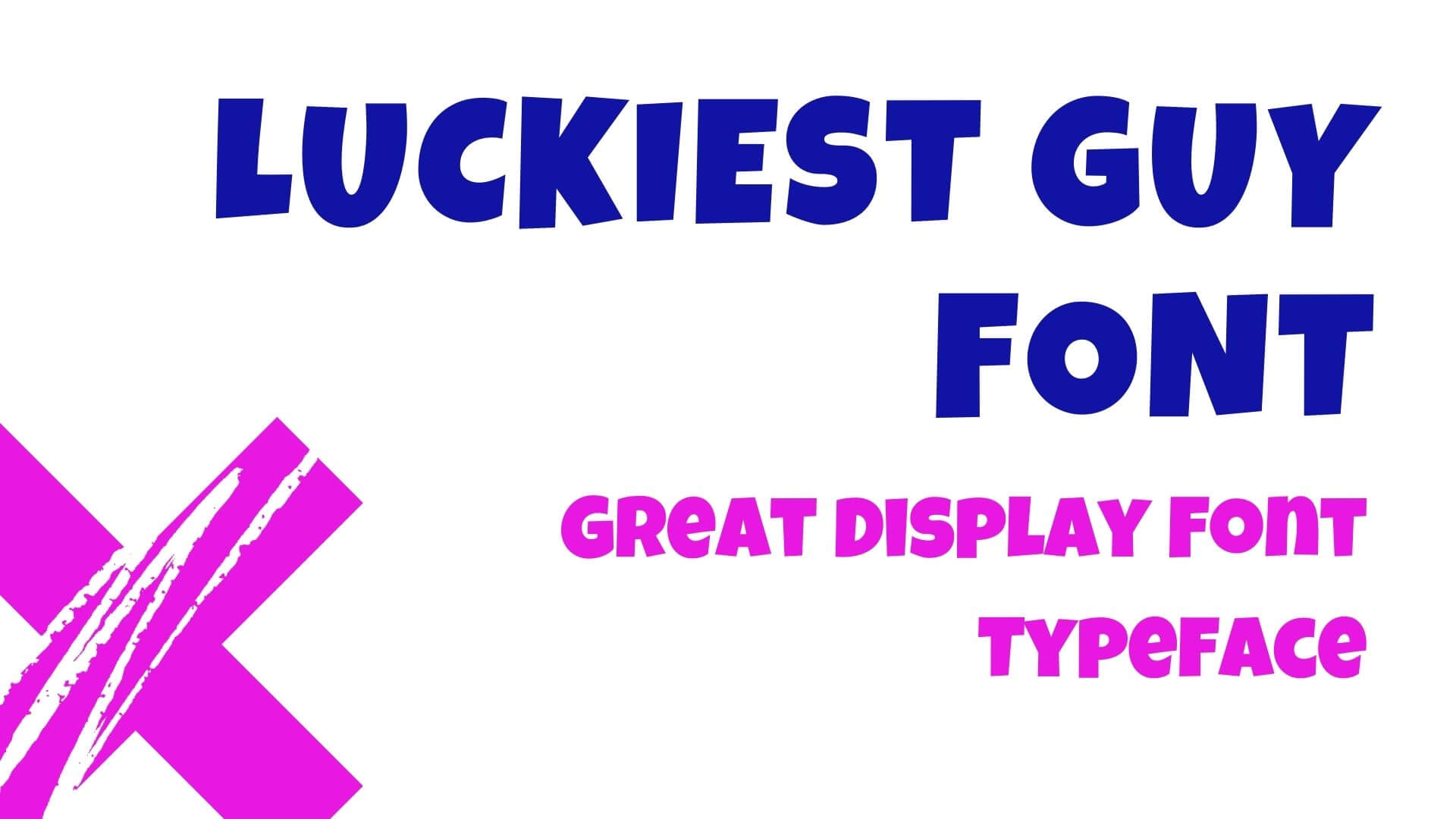
Luckiest Guy Font Family is the handmade display typeface that gets so much popularity soon after the release this font became the first choice of many different graphic and web designers as they use this with the styling of lucy font and its styles.
Luckiest Guy Font
DesignerAstigmatic